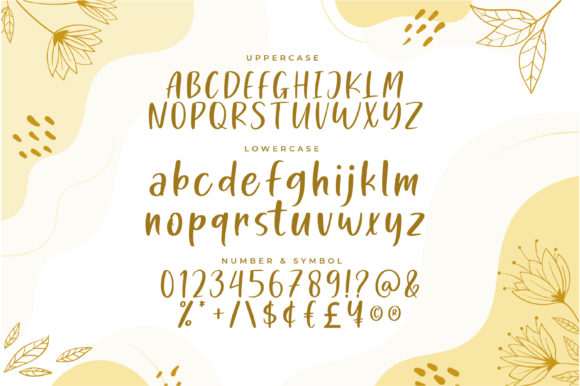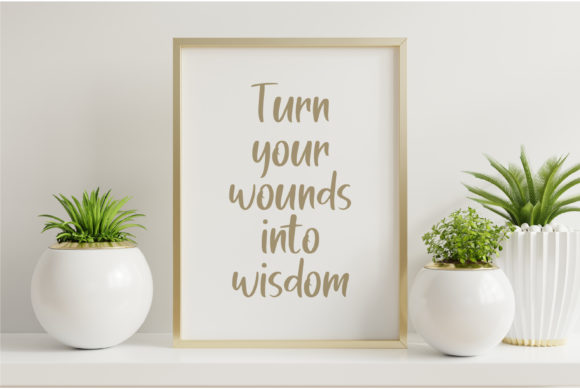
Little Things Font
db-ku.com - Script & Handwritten -- Little Things is a fun and playful handwritten font perfect for kids, quotes, home decor, party invites, blog headers, t-shirts, posters & absolutely any other design & craft project!